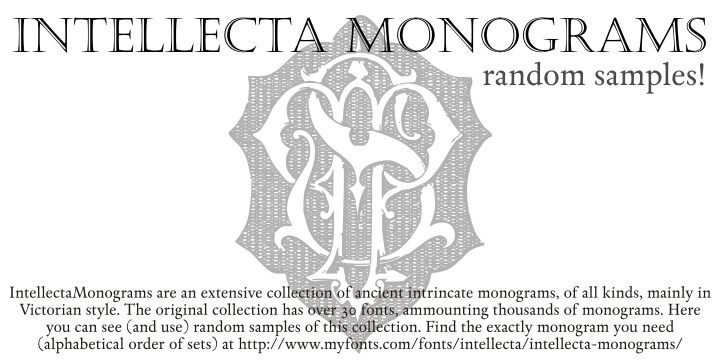
Intellecta Monograms Random Samples by Paulo W. is a free monogram symbol font gathering ornate interlaced initials in a broad mix of historical decorative styles. Fine hairlines, engraved shading, looping flourishes, and dense overlaps make each mark feel like a small piece of vintage ornament rather than ordinary lettering.
Heraldry and archival ephemera are natural subjects for this collection, especially in invitation design, boutique packaging, period publishing, and formal event programs. These symbols can become crests, seals, or illustrated emblems.
Intellecta Monograms Random Samples is a random, limited set from Intellecta Monograms, an extensive collection of thousands of monograms by Intellecta Design.